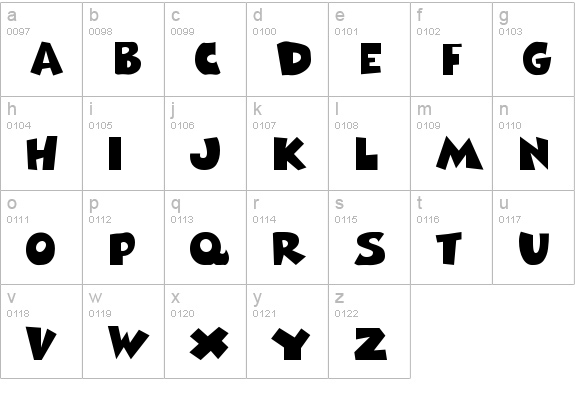
Comix Heavy FM Font Details
Comix Heavy FM is a heavy, high-impact variant in the Comix typeface family \xE2\x80\x94 well suited to high-impact headlines, posters, and display advertising.
Comix Heavy FM font is a bold and eye-catching typeface that exudes a sense of strength and playfulness. Its thick strokes and distinctive letter shapes make it perfect for headlines, logos, and other design projects that require a strong visual impact. This versatile font is sure to grab attention and make a statement in any creative work.